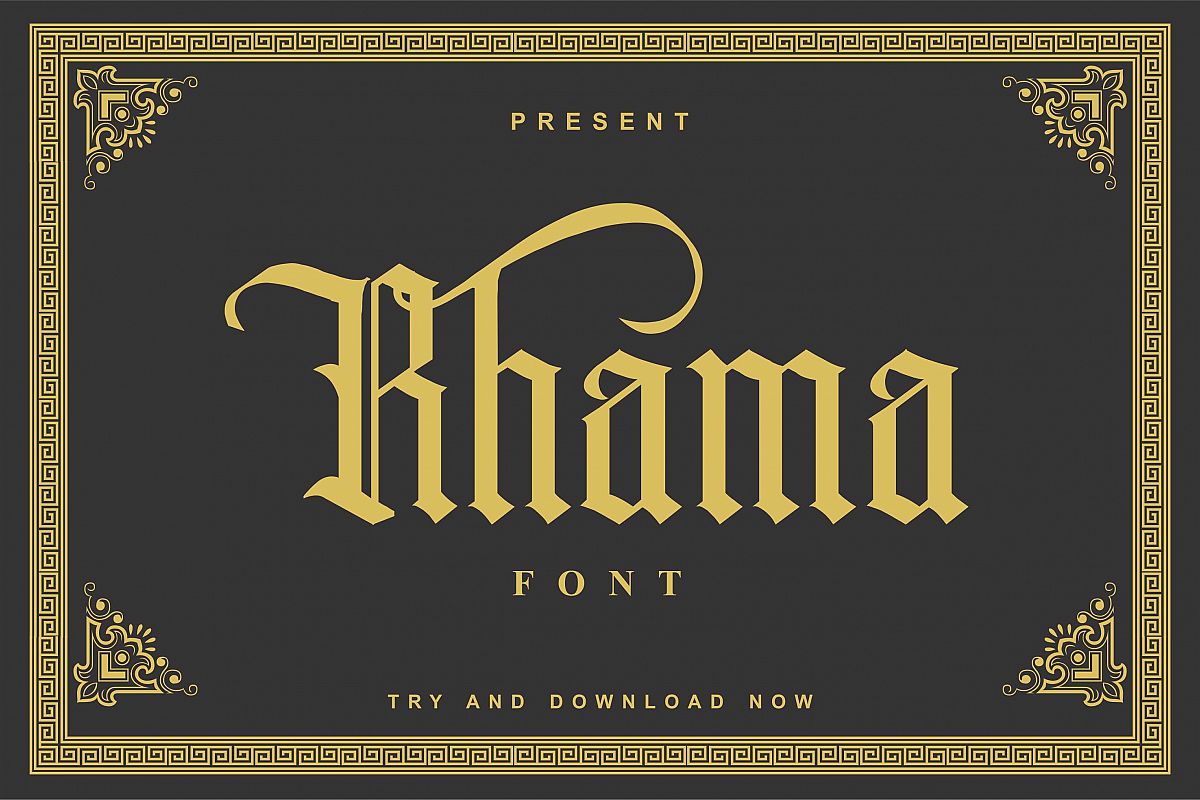
Rhama Font
INTRODUCING Presents our product Rhama typeface is vintage style. The font will great for product logo,wedding card logo, clothing brand logo,Vintage design and much more